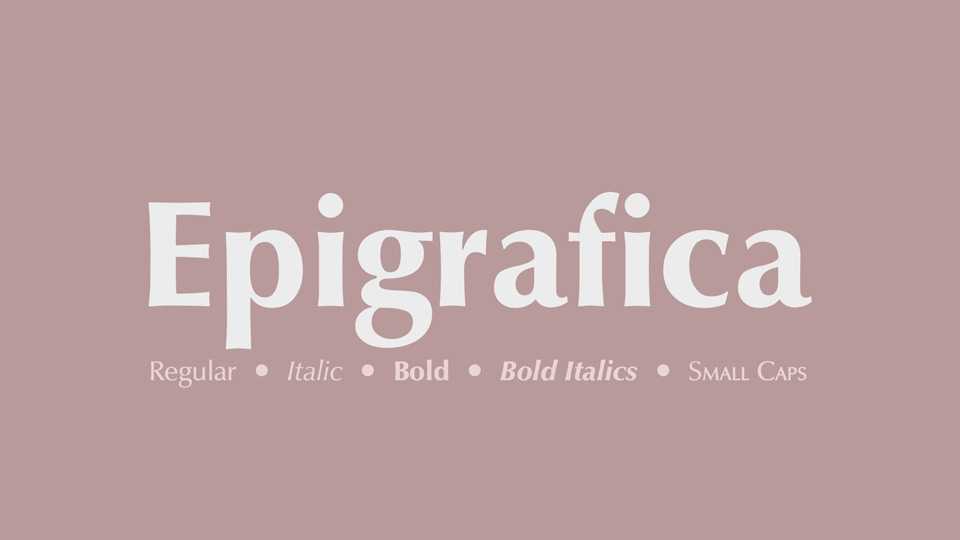
Download Epigrafica typeface, a beautiful sans serif font family in two weights and Italics with simple elegance of its forms and the warmly human touches of its tapering stems.
Designer: Antonis Tsolomitis